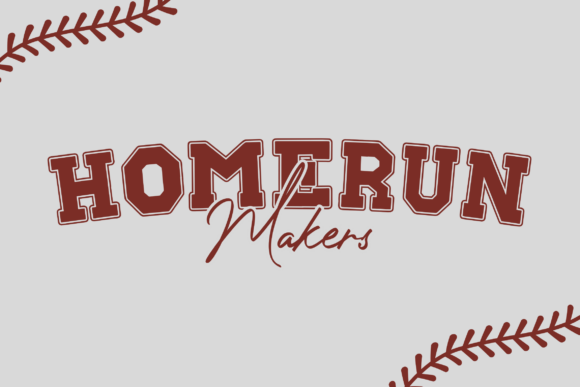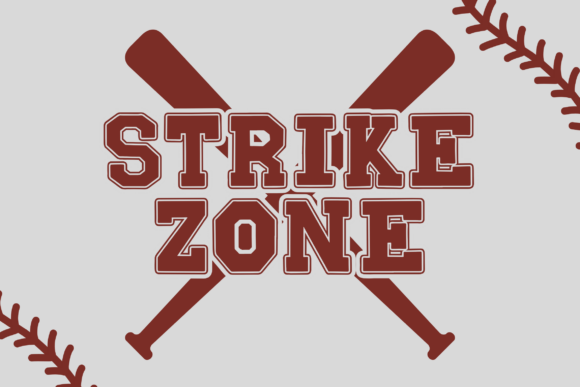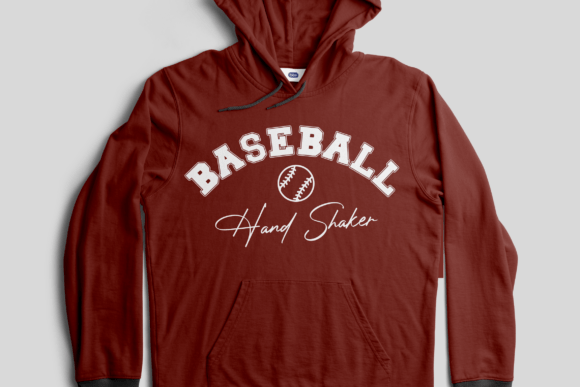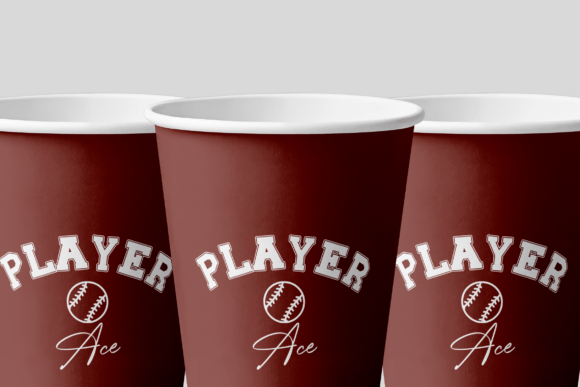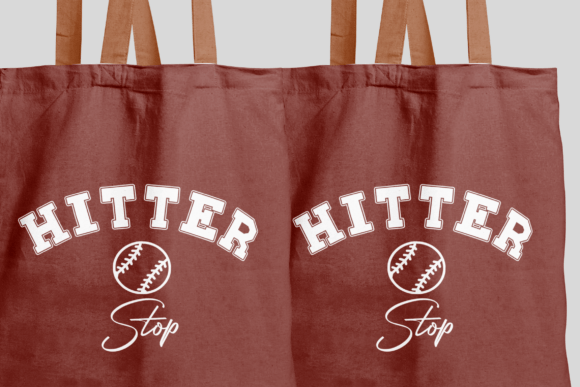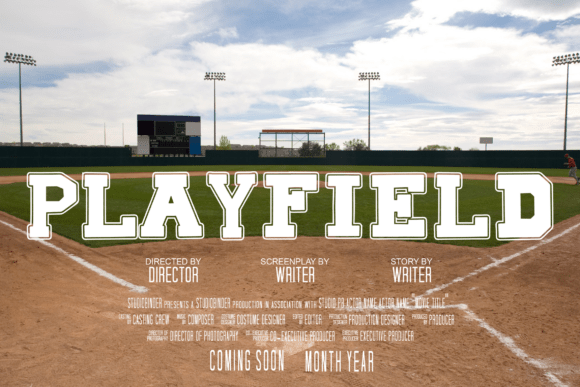
Unleashing the Power of Blocksmith Varsity Font
I’ll never forget the time I was working on a project to create a logo for a local school’s sports team. I had a clear vision of what I wanted to achieve – a bold, athletic look that would make the team stand out. But, I was struggling to find the right font. That was until I stumbled upon Blocksmith Varsity, a powerhouse display font that has become a go-to in my design arsenal.
What is Blocksmith Varsity?
Blocksmith Varsity is a bold athletic varsity font designed for sports, spirit, and standout designs. With strong block shapes, sharp serifs, and a classic varsity aesthetic, this all-caps font captures the look of team jerseys, college banners, and retro athletic graphics. Whether you’re creating logos, merchandise, or school apparel, Blocksmith Varsity brings tradition and energy into every character.
Blocksmith Varsity Font Features
- Traditional Varsity Style: Inspired by vintage school lettering and championship graphics.
- Perfect for Sports & School Projects: Ideal for team logos, spirit gear, stadium signage, and campus events.
- Bold and Structured: Wide letterforms with strong verticals and tight spacing for maximum impact.
- Complete Character Set: A–Z uppercase letters, numbers, punctuation, and multilingual accents.
- ✨ The font’s bold and structured design makes it perfect for creating eye-catching graphics.
- ✅ The traditional varsity style is reminiscent of vintage school lettering and championship graphics.
- 🤔 The font is all-caps, which may limit its use for certain projects that require lowercase letters.
- ⚠️ The font’s bold design may not be suitable for projects that require a more subtle look.
Blocksmith Varsity was inspired by the classic varsity designs of the past. The font’s creator wanted to capture the spirit and energy of vintage school lettering and championship graphics. The result is a bold, athletic font that’s perfect for sports teams, schools, and designers looking for a unique and eye-catching look.